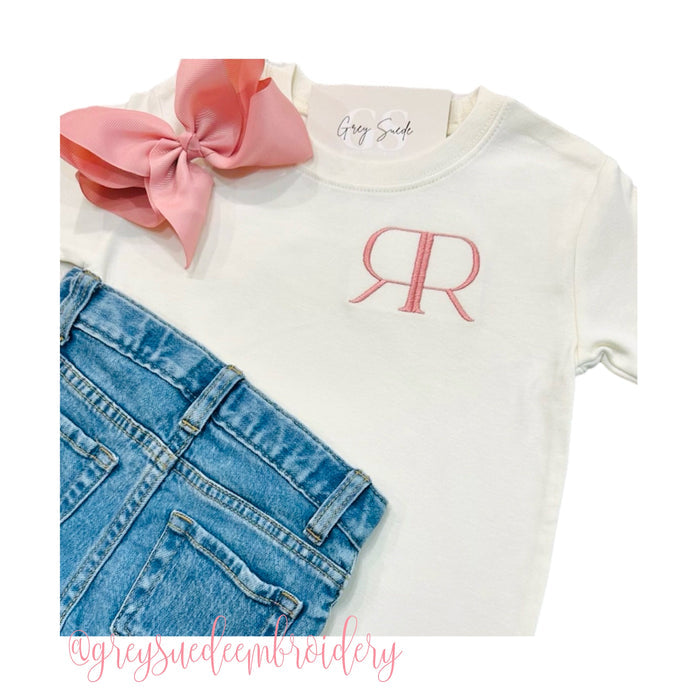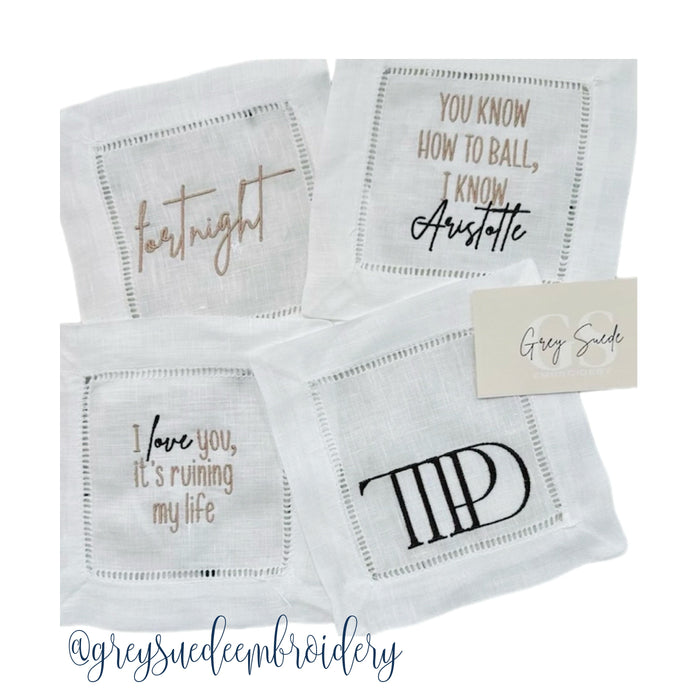
Tortured Poets Embroidery Font Package
Unlock your creativity with the Tortured Poets Embroidery Font Package. This versatile embroidery monogram font features satin stitch letters available in sizes ranging from 1" to 3". With formats including PES, DST, VIP, VP3, HUS, JEF, EXP, XXX, and BX, it's perfect for customizing names and monograms tailored to your crafting projects.